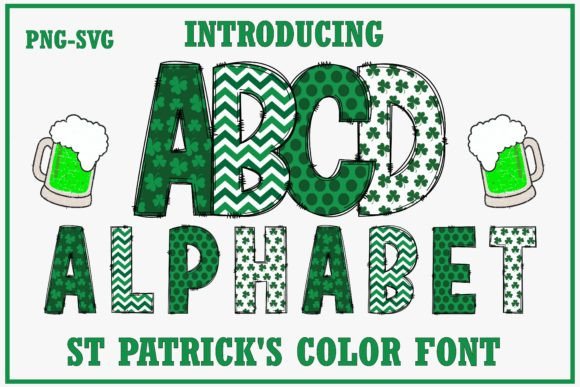
Introducing St Patrick's Font - the latest addition to your font library that will take your designs to the next level. Created by Color Studio, this colorful font is more than just a set of letters, it's a work of art.
St Patrick's Font is perfect for those looking to add an organic and beautiful touch to their designs. With its unique style, it's sure to stand out from the crowd and capture the attention of your audience. Whether you're working on a branding project or creating eye-catching social media graphics, this font will help you achieve your goals.
But St Patrick's Font isn't just beautiful, it's also versatile. Use it for anything from logos and titles to body text and captions. Its wide range of styles and colors make it suitable for a variety of design ideas.